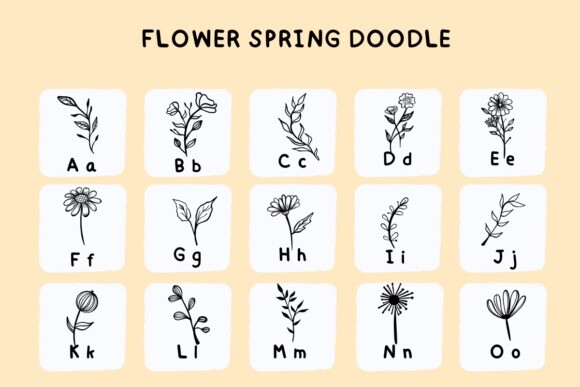
Flower Spring Doodle Font
Flower Spring Doodle Font, a captivating dingbats font with a whimsical sketch style. Ideally suited to sprinkle a touch of charming elegance to your creative endeavors, be it wedding invitations, DIY projects or crafty creations. This font illuminally enhances the aesthetic appeal of your decorative elements and can definitively define your logos. Tantalize your creative spirit with limitless possibilities by taking your artwork to the next level with Flower Spring Doodle. Where design meets playfulness, every creation transforms into an engaging visual story.
Flower Spring doodle
124 Characters